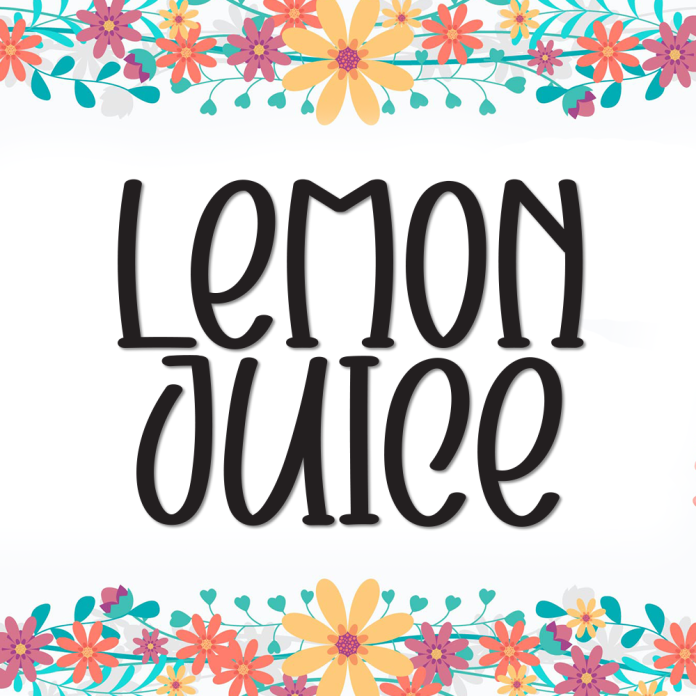
Lemon Juice is a bold and energetic display font bursting with freshness. Its quirky letterforms and playful curves evoke the tangy zest of summer drinks and carefree vibes.
Perfect for branding, beverage labels, children’s products, and vibrant posters, Lemon Juice brings a juicy splash of fun to every design.
Bold and quirky display style
Rounded, playful characters with a juicy feel
Ideal for food packaging, logos, headers, and summer-themed projects
Includes uppercase, lowercase, numbers, and punctuation
Add a twist of creativity to your project with Lemon Juice — where every letter pops with flavor!